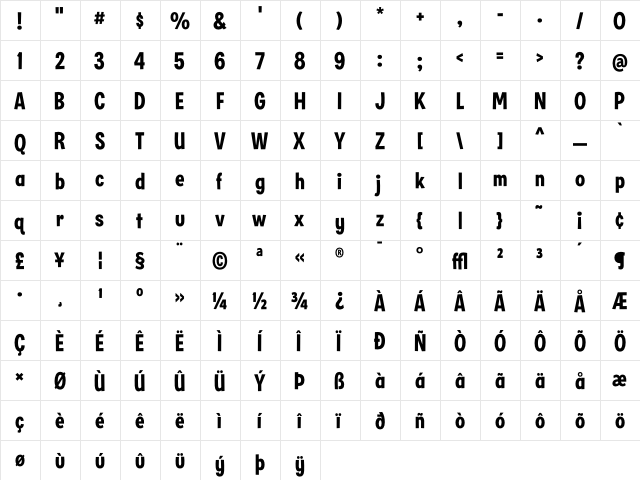
EdPS GothicAlt
Design Context for EdPS Typeface
EdPS has the quiet confidence of well-executed sans-serif typography: versatile, unobtrusive, and dependable at any size.
Font Pairing: Works well alongside a characterful serif or display font that can carry the expressive load while EdPS handles the functional copy.
Pro Tip: Use EdPS for UI labels, navigation, and short-form body copy where clean legibility is the priority.